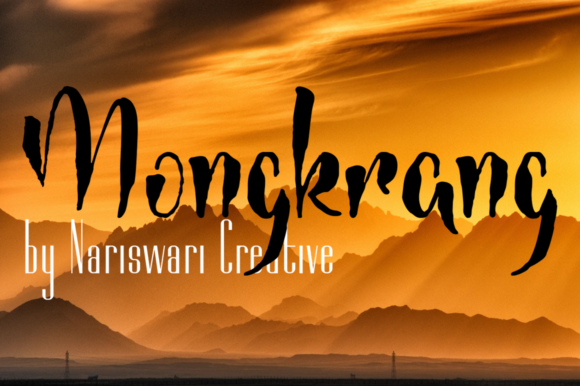
Unleash your creativity and add a touch of personal flair to your packaging designs with Mongkrang Font, a script font family that exudes uniqueness and drama. Inspired by the art of handwritten notes, Mongkrang boasts a rough yet charming texture, making it the perfect choice for casual and informal designs that demand attention.
Designed by the talented Nariswari Creative, Mongkrang is not just another font; it's an expression of artistry, a tool that empowers you to transform ordinary packaging into captivating masterpieces. Its bold strokes and sweeping curves evoke a sense of playfulness and energy, inviting your customers to engage with your products on a deeper level.
With Mongkrang, you have the freedom to craft designs that speak to your brand's personality, whether it's playful, elegant, or edgy. Its versatility shines through in its ability to complement a wide range of packaging styles, from sleek and modern to rustic and vintage.
Imagine your customers holding a product adorned with Mongkrang's captivating letters. They'll feel an instant connection, drawn in by the font's undeniable charm. The rough texture adds a touch of authenticity, making your packaging stand out from the crowd and leaving a lasting impression.
Unlock the potential of your packaging designs with Mongkrang Font. Its unique charm and versatility will transform your products into irresistible works of art, captivating your customers and driving sales. Embrace the power of Mongkrang and redefine the art of packaging.